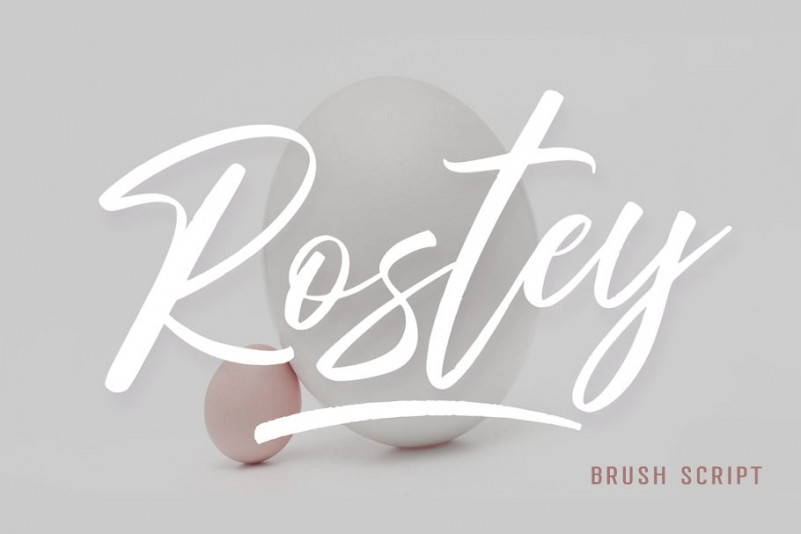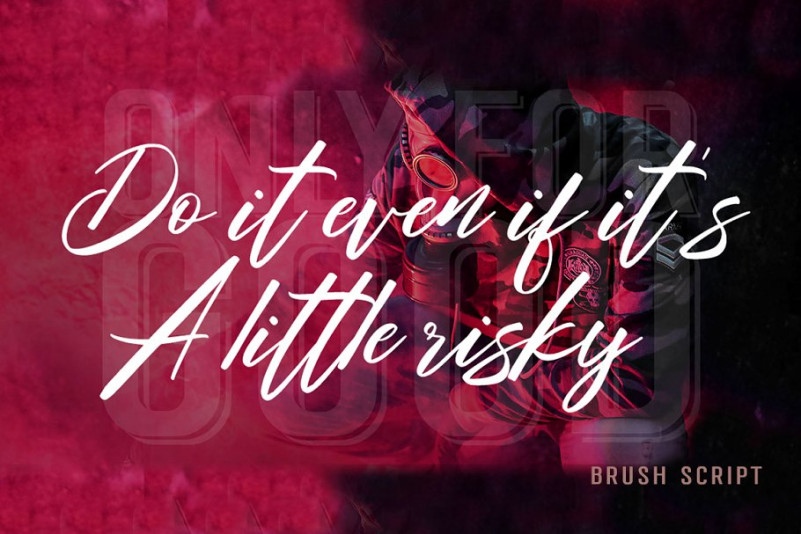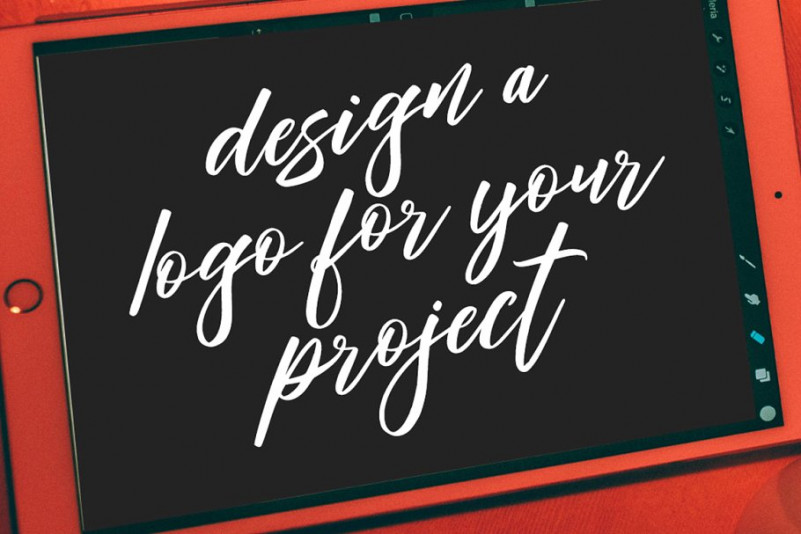
Rostey Font
Rostey is a beautiful calligraphic brush font, specially designed for a variety of designs today, very suitable for branding, logos, business cards, posters, invitations, greeting cards, news, product packaging, blog posters, all including personal charms etc.